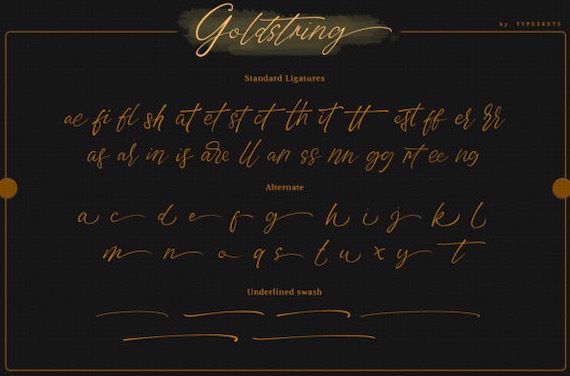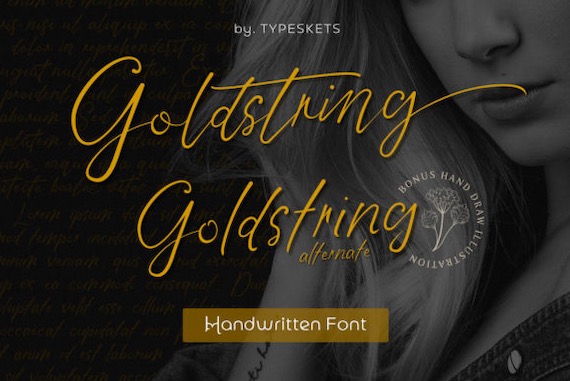
Goldstring is a delicate and flexible signature handwritten font that was created and shared by Typeskets. It’s inspired by classic typography and brings its own unique style to any design project. This handwritten font is the perfect fit for all of your logos, branding, social media, and crafty DIY projects.
Goldstring Signature Handwritten Font